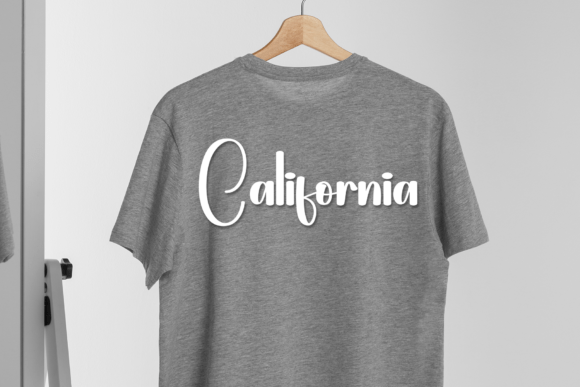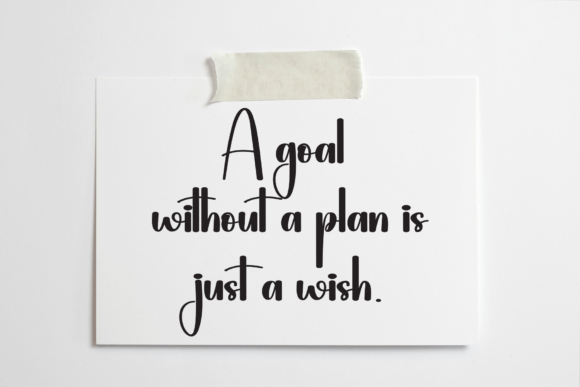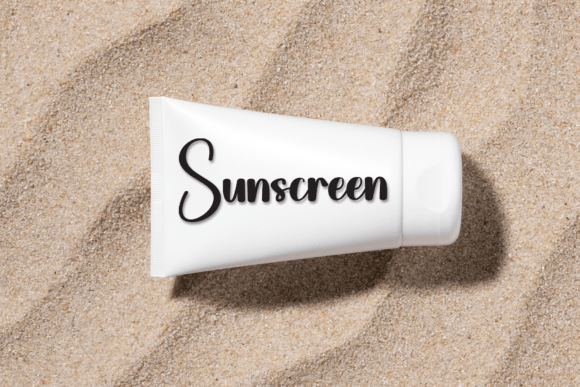
Introduction to Season Beautifull Font
Have you ever been scrolling through social media, and a beautifully designed invitation or post catches your eye? The flowing curves, the elegant touch, and the playfulness all combine to make you stop and admire. For designers, finding the perfect font can make all the difference in a project. And that’s where the Season Beautifull Font comes in – a stylish handwritten script font that adds a personal, charming touch to any creative project.
With its high-quality design and transparent background, this font is a valuable resource for designers looking to elevate their work. Whether you’re working on a branding project, creating social media graphics, or designing invitations, the Season Beautifull Font is sure to bring a touch of sophistication and elegance. And the best part? It’s available for free download, making it an accessible design resource for creatives of all levels.
So, what sets the Season Beautifull Font apart from other design resources? Its unique blend of elegance and playfulness, making it perfect for designers who want to add a personal touch to their work. Whether you’re working on a high-end branding project or a casual social media post, this font is sure to bring a touch of creativity and charm.
Key Features of Season Beautifull Font
- High-quality, professional design perfect for various creative projects, including invitations, greeting cards, and more.
- Features a unique, hand-drawn design that adds a touch of elegance and sophistication to any creative project.
- Perfect for designers looking for a high-quality, free font to enhance their designs and stand out from the crowd.
Honest Review: Season Beautifull Font
I recently had the chance to work with the Season Beautifull Font, and I must say it’s been a game-changer for my creative project. The moment I downloaded it, I was impressed by its high quality and versatility.
Here are some of the things that work well: ✨
- Transparency: The font has a transparent background, which makes it easy to work with and allows for seamless integration into any design.
- High-quality design: The font is beautifully designed, with clean lines and a professional touch.
However, there are a few limitations to keep in mind: ⚠️
- Limited font styles: While the font itself is beautiful, there are limited styles to choose from, which may not be suitable for all projects.
- Not suitable for all projects: The font is best suited for creative projects that require a touch of elegance and sophistication.
Overall, I’m really impressed with the Season Beautifull Font, and I would definitely recommend it to designers looking for a high-quality, free design resource.
Season Beautifull Font is ideal for a variety of creative projects, including invitations, greeting cards, and social media graphics. Its high-quality design and transparent background make it perfect for adding a touch of elegance and sophistication to your designs.